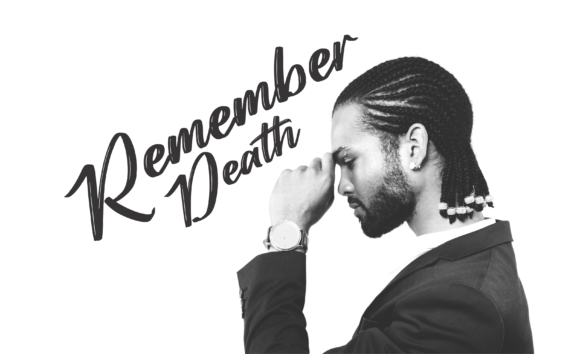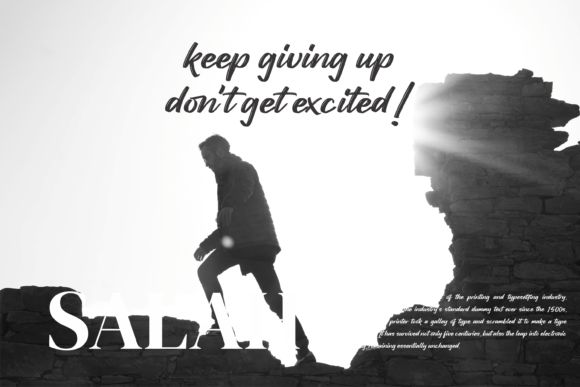
Hitoribok Font
db-ku.com - Script & Handwritten -- Hitoribok is a beautiful, well balanced and vintage styled script font. It is defined by smooth curves and is perfect for fashion branding or editorial designs. Add it confidently to your projects, and you will love the results.